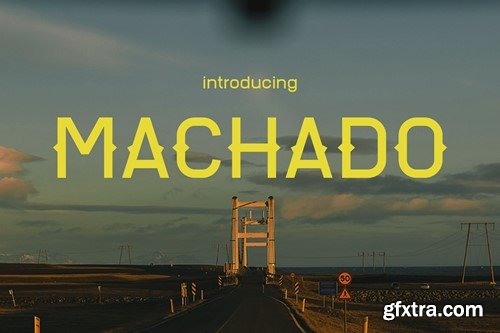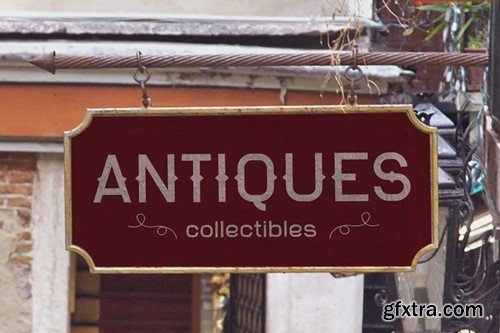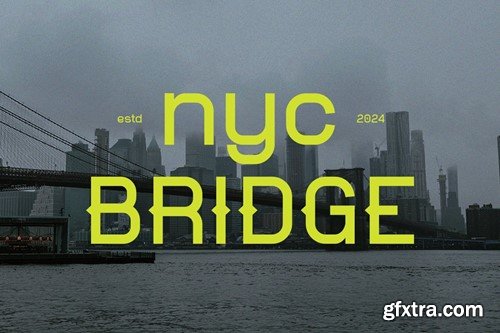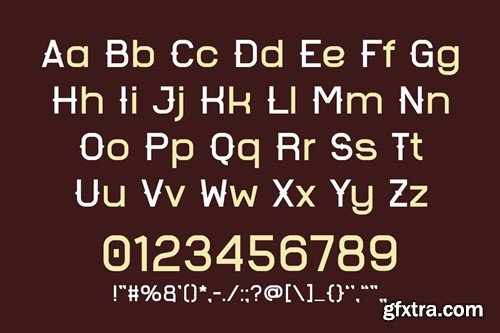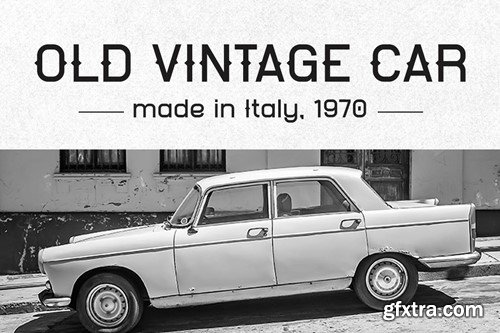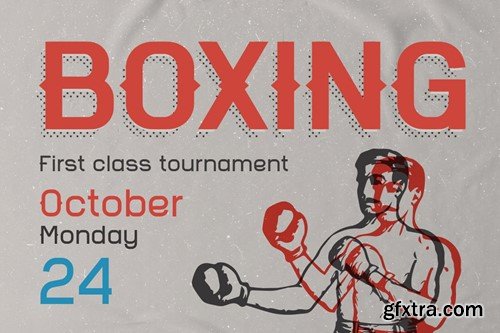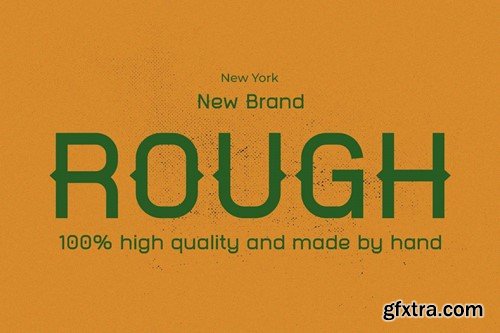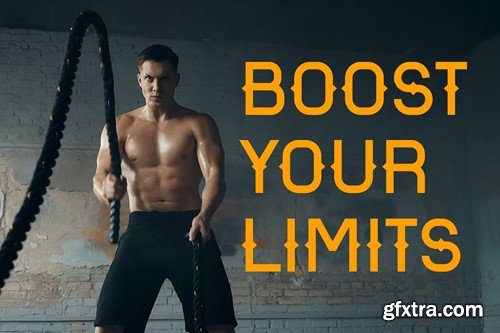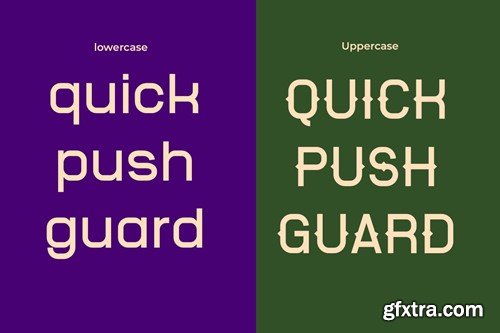
马查多 - 一种优雅字体的复古融合 25U553D
Machado is a font that epitomizes the retro aesthetic, infused with elements of elegance, classic design, and a vintage touch. It's a perfect homage to the past, yet skillfully crafted to meet the needs of contemporary design. For logos, Machado offers a distinctive and refined appearance, setting a tone of sophistication and time-honored style. Its elegant contours make it ideal for quotes, adding a layer of depth and class that elevates the words. In invitations, Machado brings a sense of classic charm, making each event feel more exclusive and memorable. Its application in posters and greetings captures the heart with its vintage elegance, making every message feel special and heartfelt. In packaging and branding, this font stands out with its unique blend of retro and modern elegance, giving products a signature look that's both nostalgic and stylish. For book covers, event promotions, headlines, and advertising, Machado ensures your message is not just seen but also cherished, delivering a timeless appeal that resonates with a sense of history and beauty.